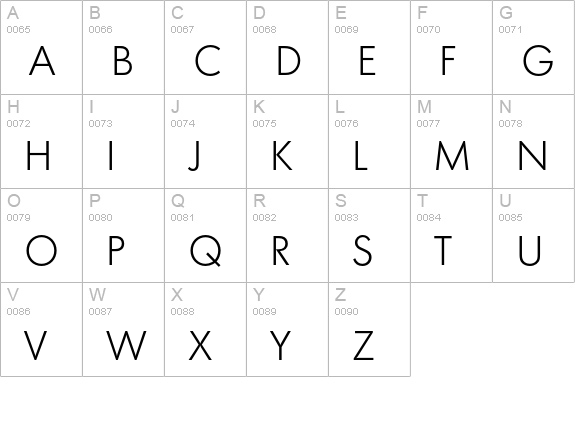
Montreal-Light is a refined, elegant variant in the Montreal typeface family \xE2\x80\x94 well suited to elegant body text, refined sub-headings, and luxury branding.
Montreal-Light font is a modern and elegant typeface that exudes sophistication and style. With its sleek lines and balanced proportions, this font is perfect for a wide range of design projects. Whether you're creating a professional presentation or designing a sleek website, Montreal-Light font will add a touch of class to your work. What sets Montreal-Light font apart is that it is available for free download at FontsMarket.com. This means that you can easily access this high-quality font without any cost, making it a valuable resource for designers and creatives. Don't miss out on the opportunity to enhance your projects with the timeless beauty of Montreal-Light font. Download it today and elevate your designs to the next level.